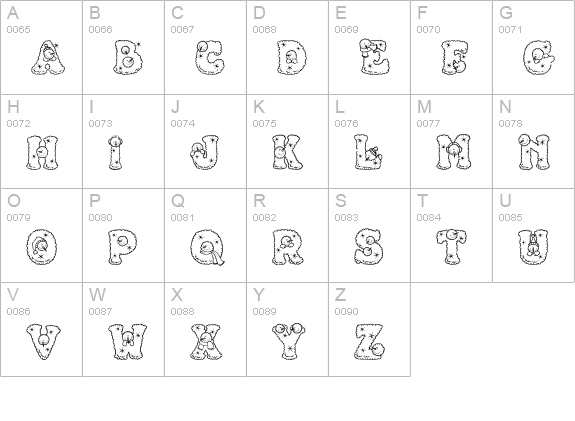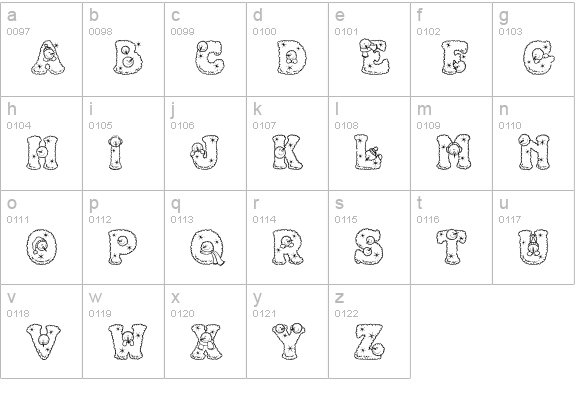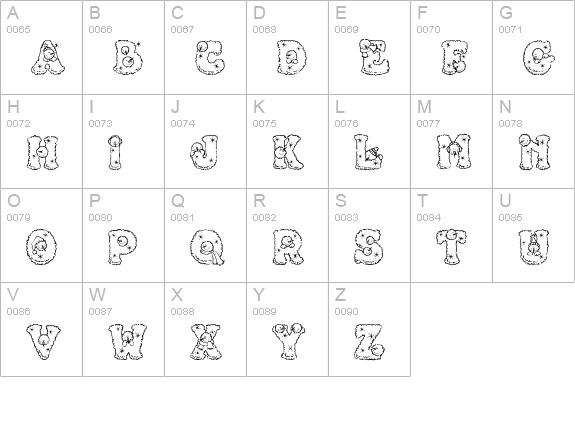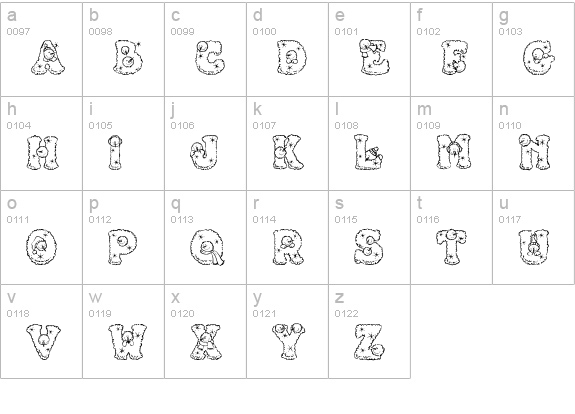
Snowpersons font is a whimsical and playful typeface that captures the magic and charm of the winter season. Each letter is intricately designed to resemble a cute and adorable snowperson, complete with a carrot nose, coal eyes, and a cozy scarf. This font is perfect for adding a touch of winter wonderland to your designs, whether it's for holiday cards, party invitations, or seasonal decorations. What makes Snowpersons font even more delightful is that it is completely free! Yes, you heard it right. This font is freely available to download at FontsMarket.com. You can easily bring the joy and merriment of snowpeople into your projects without spending a dime. The Snowpersons font comes in a variety of weights and styles, allowing you to mix and match to create unique and eye-catching designs. Whether you want to convey a sense of jolly playfulness or capture the beauty of a snowy landscape, this font has got you covered. So why wait? Spread some winter cheer with Snowpersons font, and let your creativity shine. Download it for free today at FontsMarket.com and let your designs come alive with the frosty charm of snowpeople.